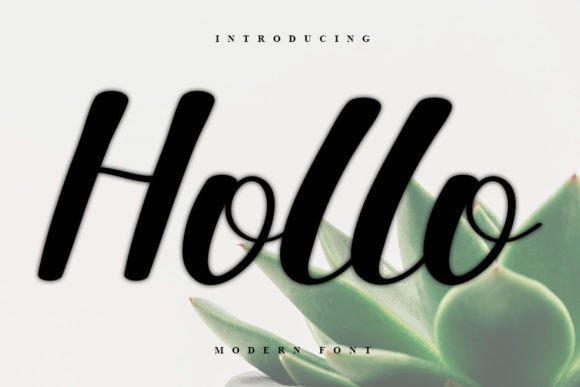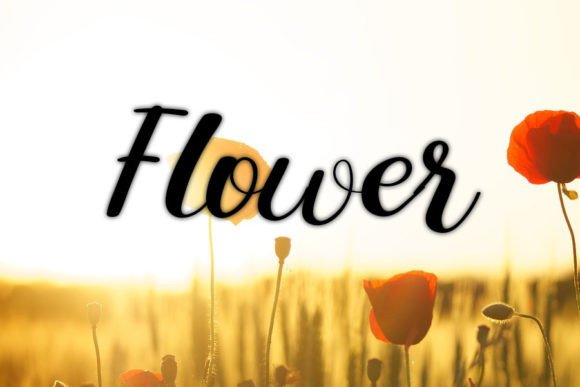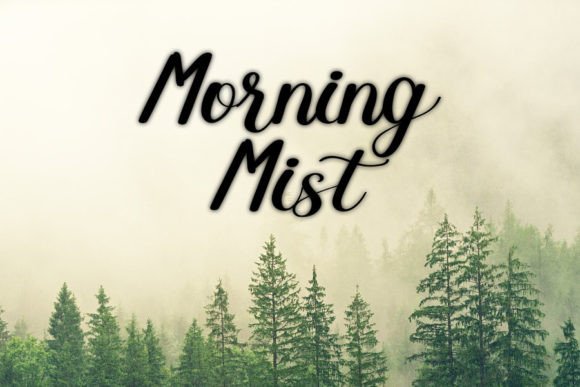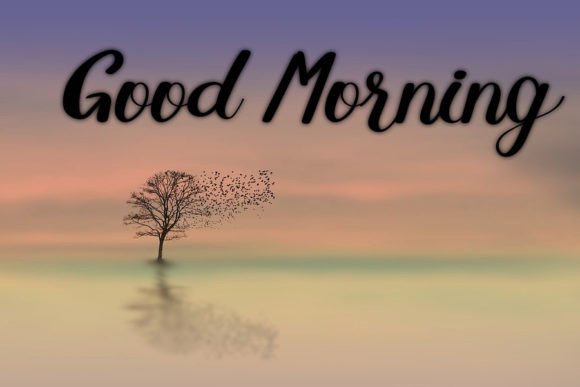
Hollo Font
What Is Hollo Font?
Hollo Font is a timeless handwritten script created to bring elegance, warmth, and personality to your designs. Each letter is thoughtfully crafted with smooth strokes and a graceful flow, giving your work a refined yet approachable look. Whether you want your design to feel classic, stylish, or heartfelt, Hollo offers the perfect combination of beauty and authenticity.
Its unique character shapes ensure that every project feels fresh and memorable.
Hollo adapts effortlessly to a variety of creative uses. For example, it’s an excellent choice for logos and branding. The sophisticated handwritten style makes your visual identity feel high-end, professional, and instantly recognizable.
Quotes and social media graphics also shine with Hollo’s charming touch. Whether you’re sharing inspirational words or announcing a promotion, this font draws attention with its beautiful, handcrafted details.
Business cards, stationery, and product packaging benefit from Hollo’s refined look. The font adds a sense of quality and care that resonates with clients and customers.
Hollo is also perfect for wedding invitations, thank-you cards, and event signage. Its timeless elegance helps set a romantic and personal tone for any special occasion.
Even websites, blog headers, and email campaigns feel more polished and welcoming when you use Hollo.
Why Should You Choose Hollo Font?
One of Hollo’s greatest strengths is its readability. Even with its delicate and stylish flourishes, each letter remains clear and legible at all sizes. Whether you’re designing tiny labels or large headlines, your text will always look professional.
The font pairs beautifully with clean serif or sans-serif typefaces, giving you the flexibility to create cohesive, modern layouts.
Designers love that Hollo looks polished out of the box, delivering stunning results with minimal effort.
Hollo Font brings elegance, authenticity, and warmth to any project. Its smooth, handcrafted lines create an emotional connection that helps your work feel more thoughtful and inviting.
Even minimalist compositions gain personality and sophistication when you use Hollo. Whether you’re creating a logo, a social media graphic, or a product label, this font elevates your design instantly.
Using a premium handwritten script shows your commitment to high-quality design. Clients and customers will notice this attention to detail, helping you build trust and stand out.
Hollo Font is more than just a beautiful script—it’s a versatile design asset that helps you share ideas with clarity and style. From branding and packaging to quotes and invitations, this font adapts seamlessly to any project and leaves a lasting impression.